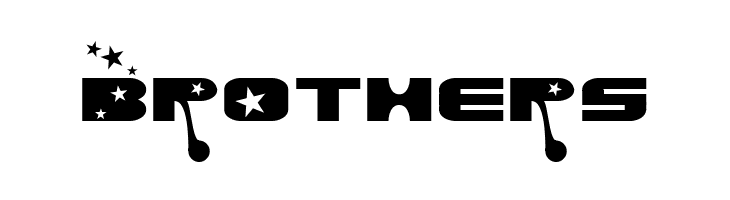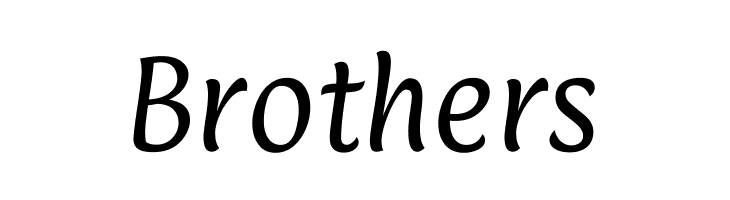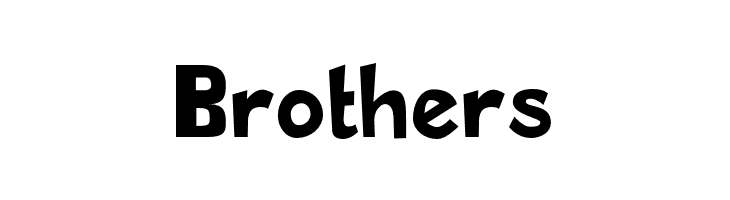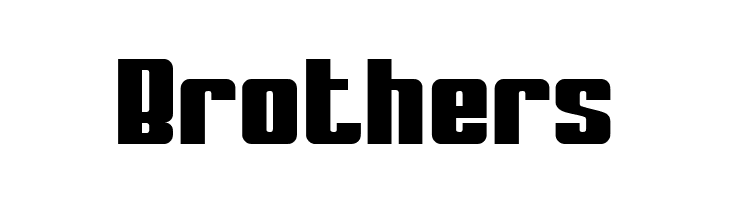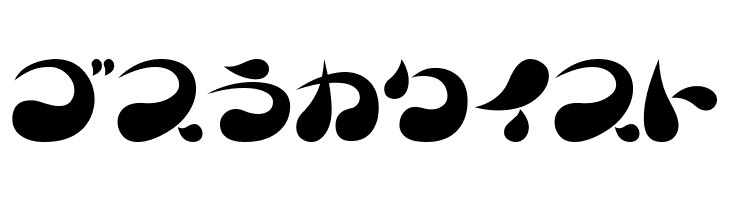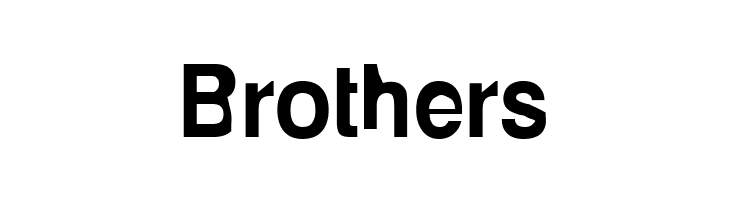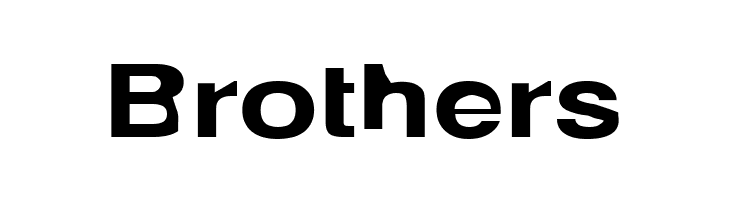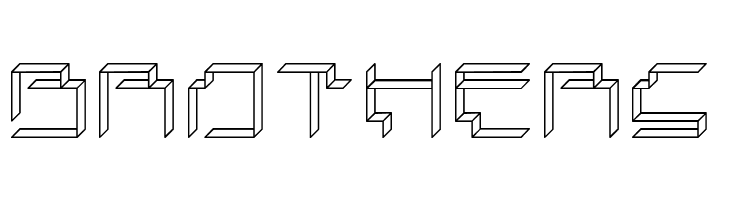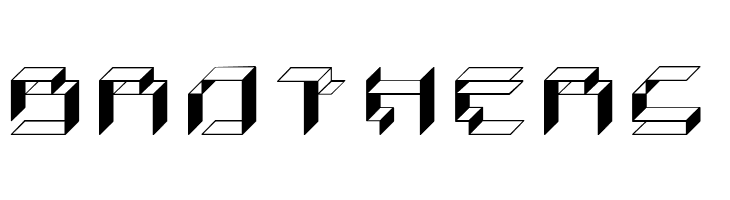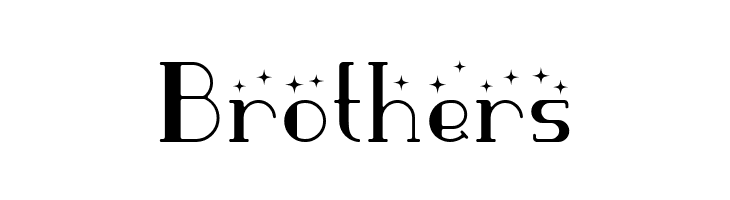
An elegant, cursive italic font with a handwritten style.
A bold, modern sans-serif font with a strong, geometric design.
A bold, impactful font with strong, thick strokes and a cohesive design.
A bold, extended font with strong, geometric strokes for impactful design.
A bold, modern font with wide, impactful characters ideal for headlines.
A playful, casual handwritten font with rounded, consistent strokes.
A textured, sketch-like font with a playful and creative design.
A bold, 3D geometric font with an origami-like design.
A 3D geometric font with a modern, playful design.
A geometric, minimalist font with a wireframe design and uniform line weight.
A geometric, cube-like font with a futuristic and digital aesthetic.
A bold, angular font with high contrast and a modern geometric style.
A playful, irregular font with a hand-crafted, cut-out paper style.
A playful, handcrafted font with a whimsical, paper-cut style.
A pixelated, grid-like font with a retro digital aesthetic.
A playful, casual handwritten font with smooth curves and a friendly vibe.
A playful, casual handwritten font with smooth curves and a natural feel.
A bold, playful font with organic curves and a retro-modern vibe.
A bold, playful font with organic, fluid shapes and high contrast.
A bold, decorative font with playful, rounded shapes and whimsical curves.
A bold, playful font with a bubbly, cartoonish style and high contrast strokes.
An elegant script font with intricate, flowing lines and high contrast, ideal for sophisticated designs.
A playful, bold font with thick, uneven strokes and a whimsical style.
A modern serif font with decorative elements and clean lines.
A modern serif font with elegant curves and a classic touch.